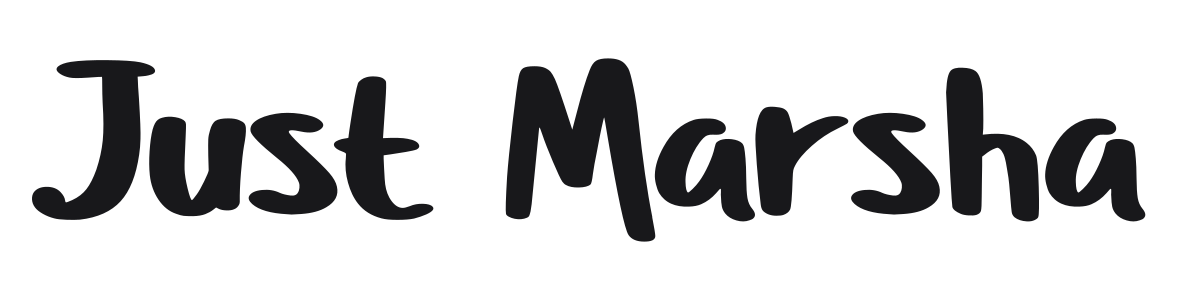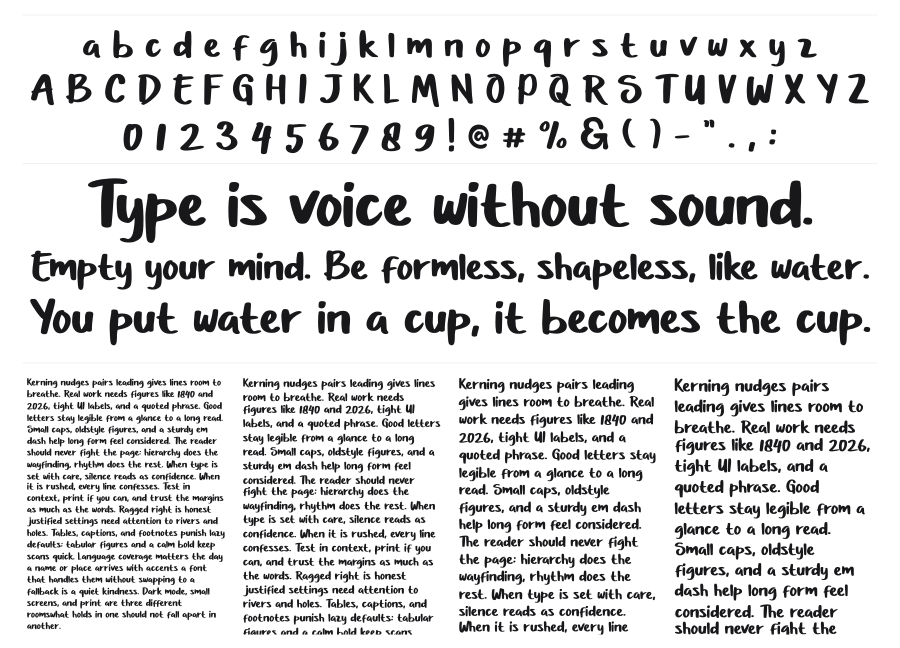
Just Marsha
Just Marsha is a bold casual script that channels the energy of a thick marker written with a loose, confident hand. The rounded strokes and bouncy rhythm make it feel genuinely friendly rather than studied. It works well for brand names, packaging, and anywhere a human touch is needed at large sizes.